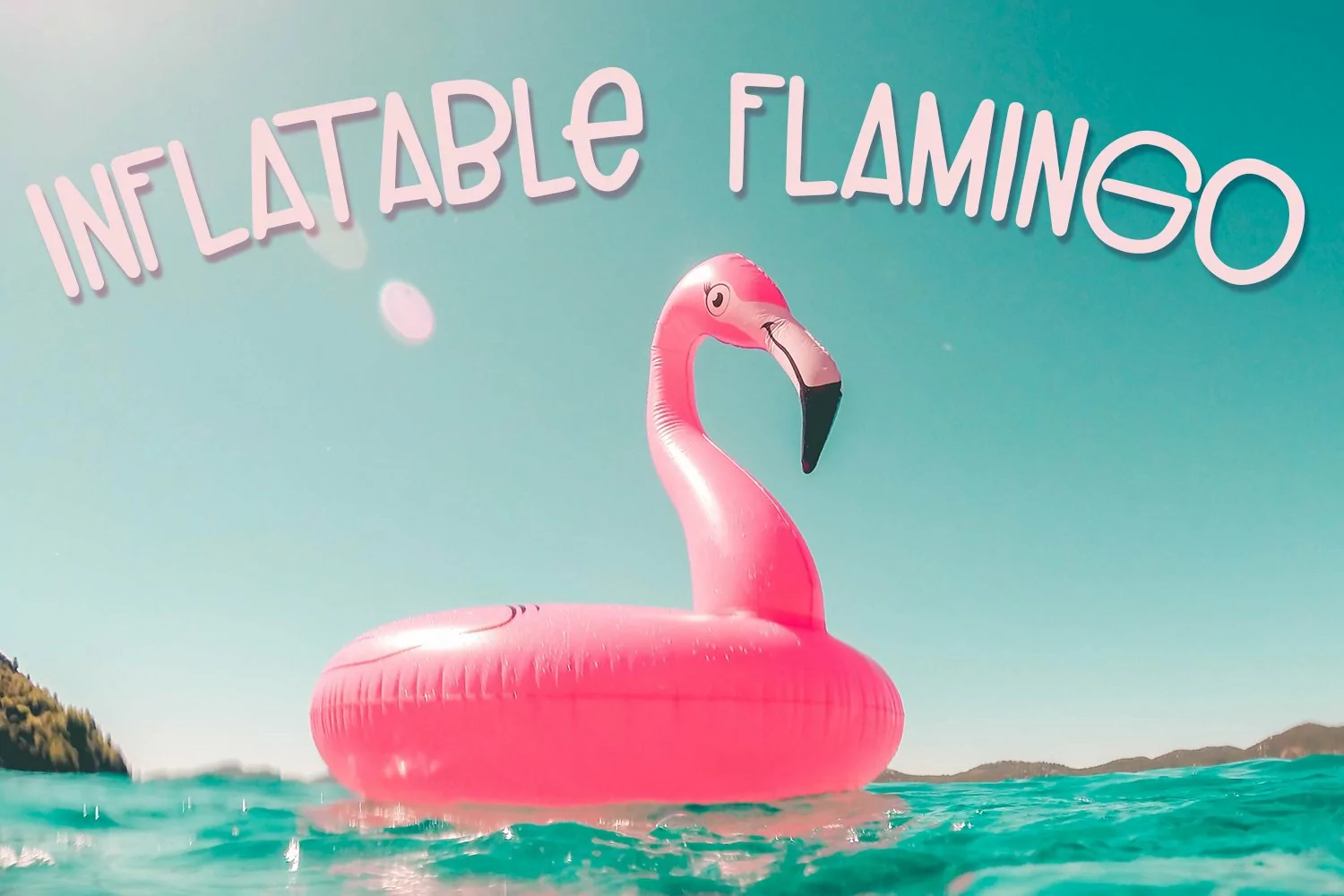
Inflatable Flamingo has that cool summer vibe to it. Fun and funky with a casual style, this handwritten font will give any design or project a touch of playfulness, making it great for tshirts. Tote bags, mugs, tumblers, stickers and decals are other great way to use this fun summer font too!